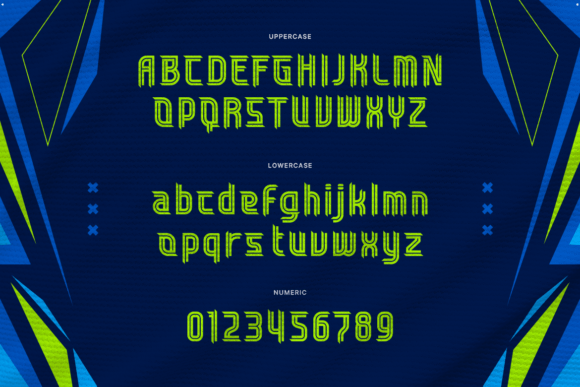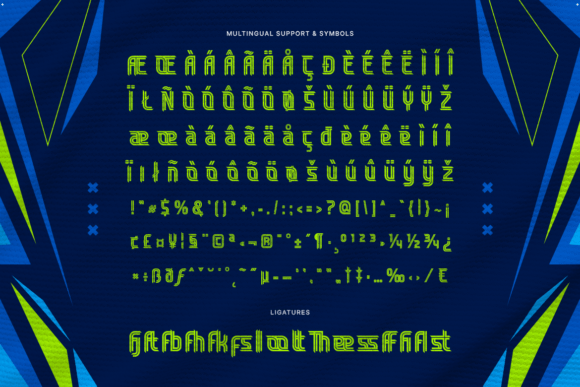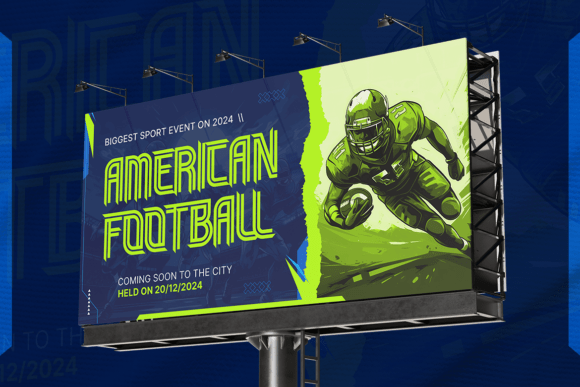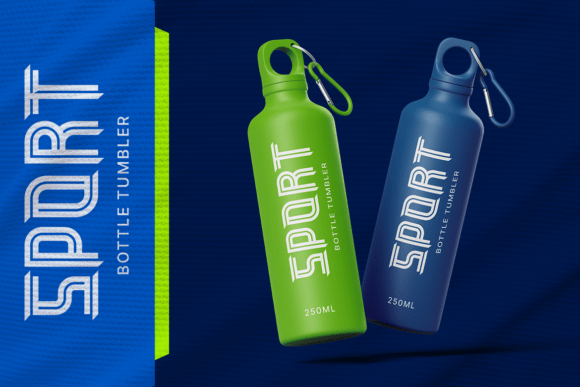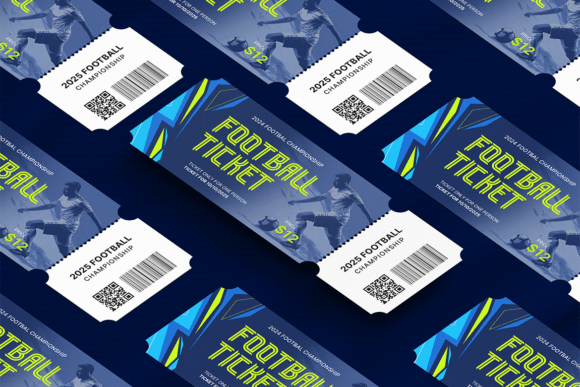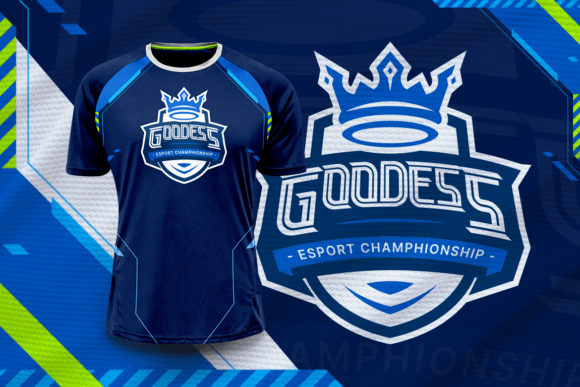
Introduction to Godpes Font
Godpes is a modern sport jersey display font designed with bold geometric shapes and sharp line details.
The structured letterforms create a strong and energetic visual style, making it suitable for athletic and competitive design themes This typeface works well for sports branding, team jerseys, esports graphics, posters, merchandise, and event promotions.
Key Features of Godpes Font
Why Choose Godpes Font?